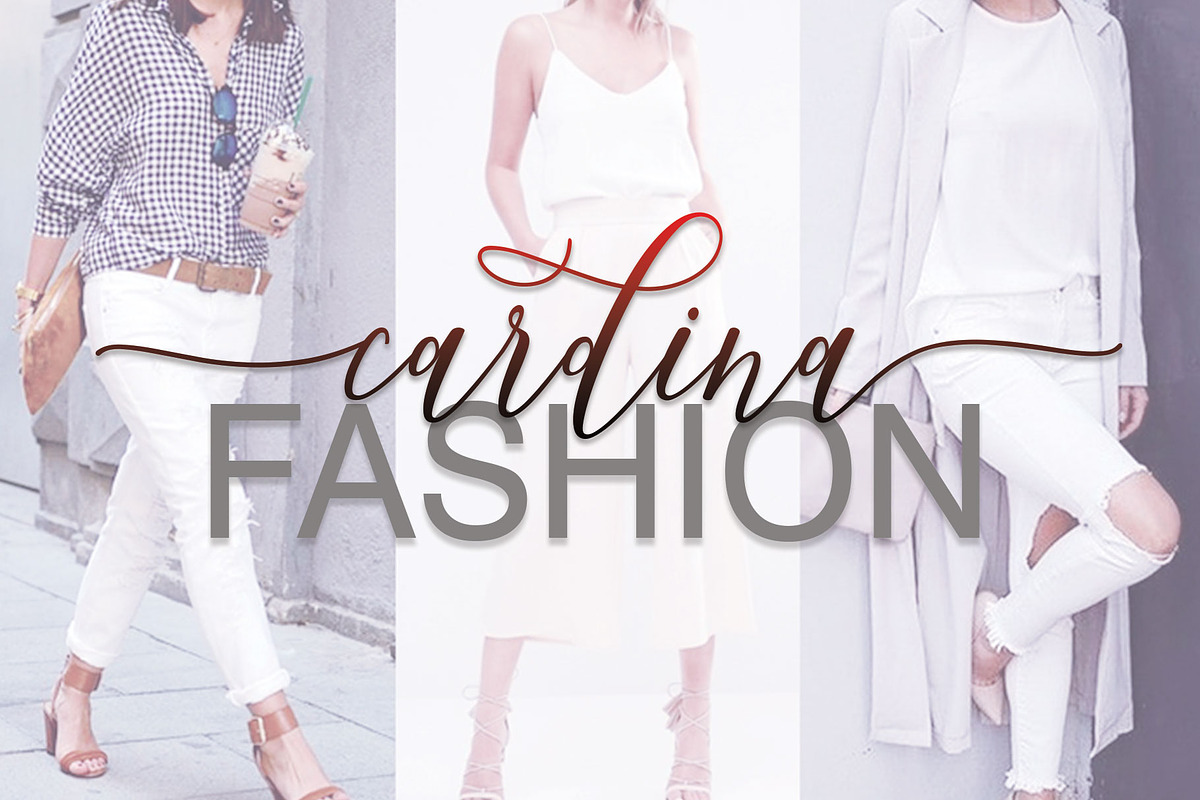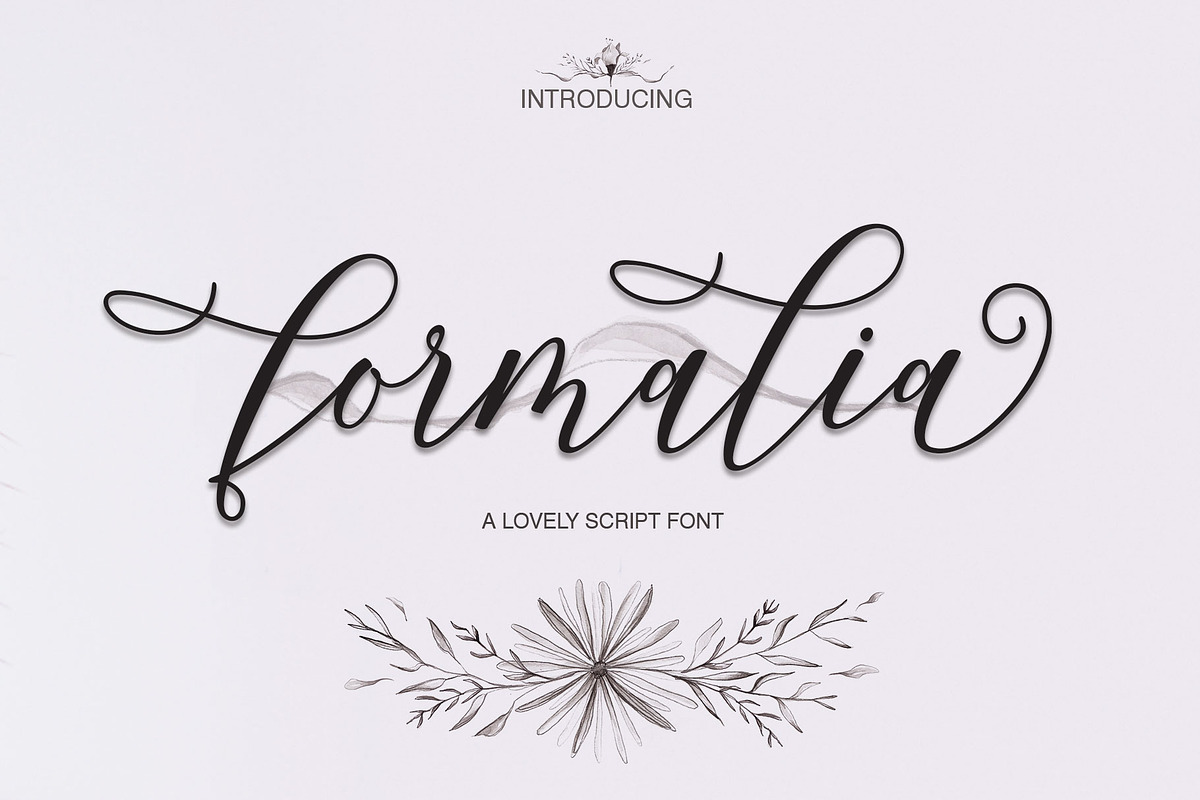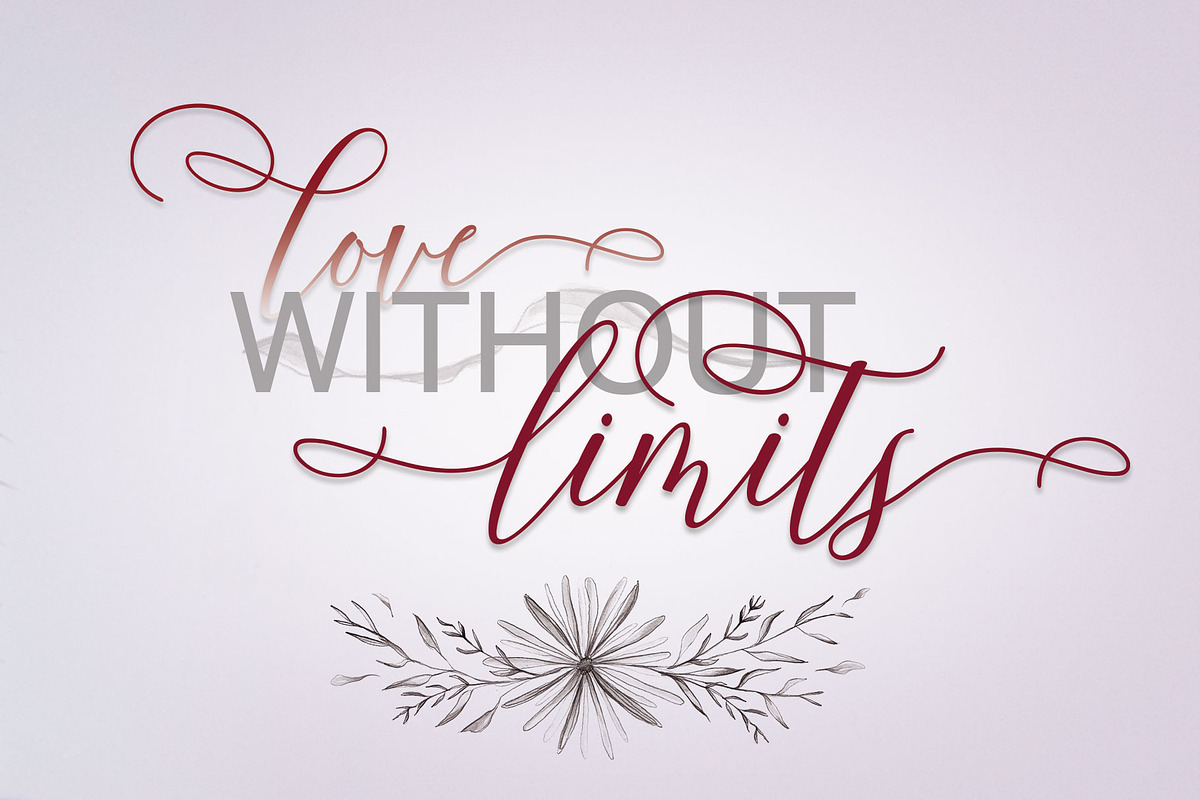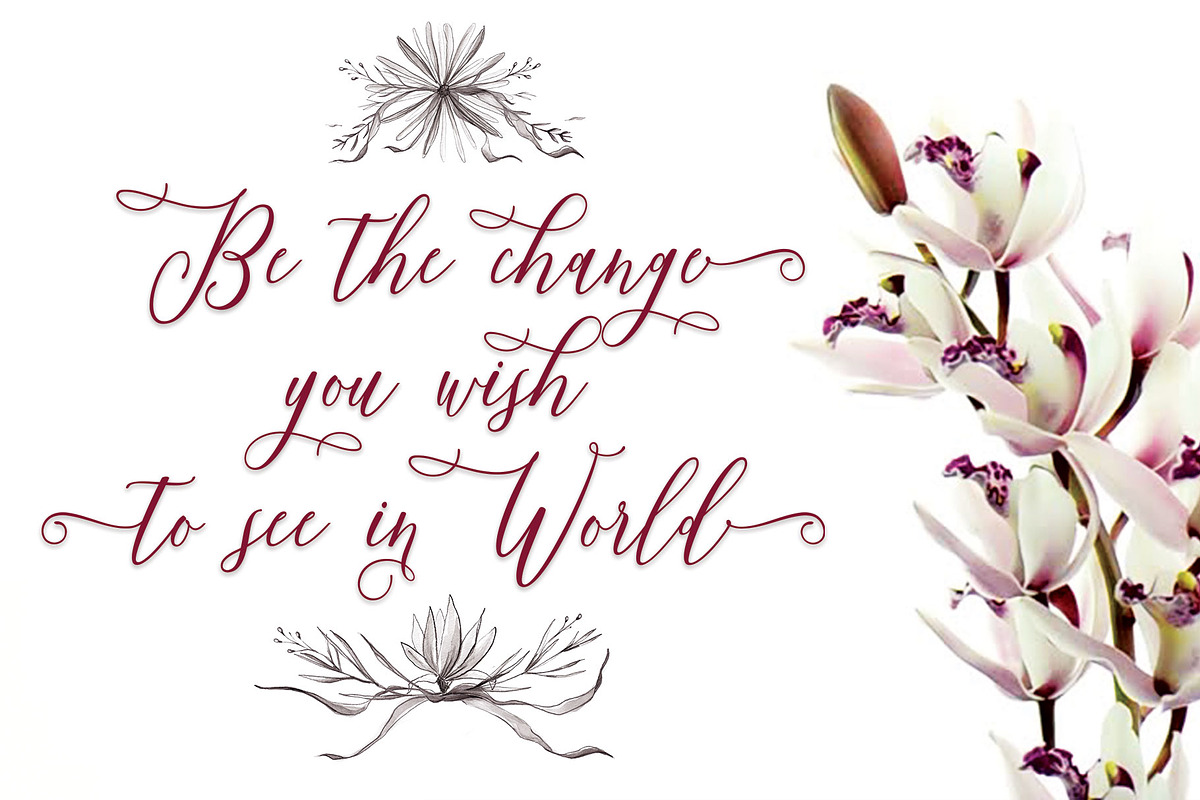
Formalia Script
Introducing the lovely new Formalia Script Font!
Formalia Script : offers beautiful typography harmony for a variety of project design, including logo and branding, wedding design, social media posts, advertising, product design etc.
Formalia Script : includes lowercase and uppercase letters, numbers, punctuation marks, standard ligatures, swash, stylistic set and multiple language support. This Font features 542 glyphs and this Font has given PUA unicode (specially coded fonts). so that all the alternate characters can easily be accessed in full by a craftsman or designer.